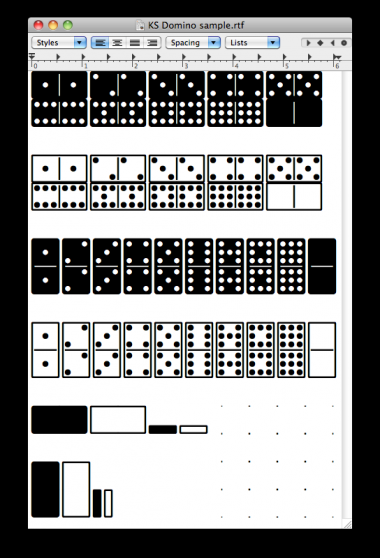
• This is a font for laying out games or sets of dominoes. Included are all the permutations of double nines (each domino tile having from 0 to 9 pips). Black and white tiles are included, as well as the backs and edges. The space character is 1/10 of a domino tile wide. The ~ character produces a dot grid, perhaps helpful for laying out the dominoes. This is my third fontstruction, and I hope it is useful to you.
Here's a sample of the different domino tiles together.
and here's the key to that sample, showing which keys produce which tiles.
p.s. I think I used every key on the keyboard. And to the designers of the qwerty layout: thank you! it has just enough room for 4 sets of 10 keys, top to bottom.
It was only a matter of time until someone saw the inherent potential in Fontstruct to create a domino font. (I anticipated this since I've done my chess bit.) Your version is nicely crafted, and seems to be useful. It compares quite well to other domino fonts available (e.g. Linotype® Game Pi Dice Dominoes - on FontShop; Las Vegas White Dominoes, Las Vegas Black Dominoes). Congratulations. 10/10
Great stuff! - real precision work :)
Nice Domino font, wish I'd thought of backs and sides when I made my version.